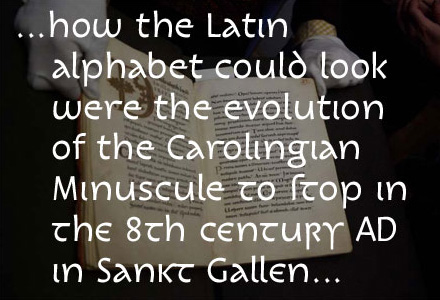
Gallus Konzept (Stormtype)
when looking for suitable typeface for an occasional rare print, see our
fresh Gallus Konzept - Carolingian-Roman-Gaelic-Uncial script, or an
exploration into how the Latin alphabet could look were the evolution of the
Carolingian Minuscule to stop in the 8th century AD in Sankt Gallen.